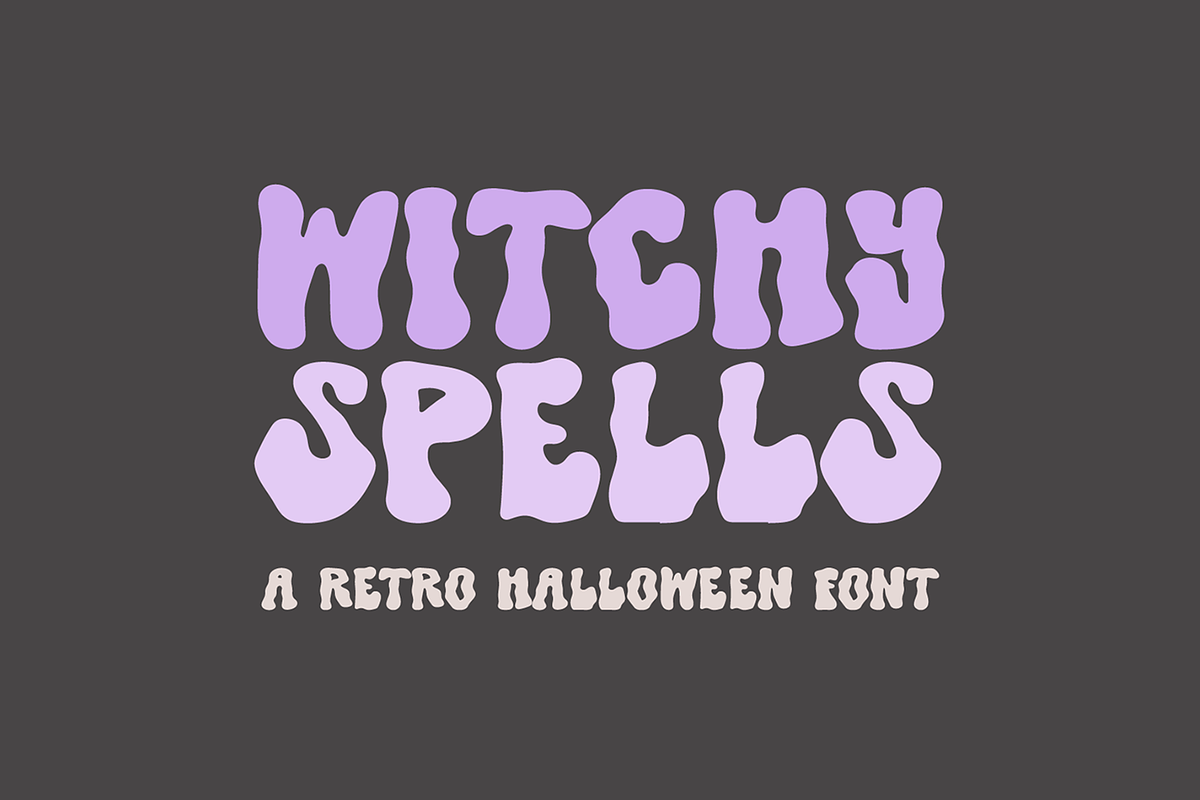
WITCHY SPELLS Retro Halloween Font Free Download is a spooky-fun typeface packed with vintage Halloween charm. With its bold, quirky letterforms and eerie flair, this font is perfect for Halloween party invitations, trick-or-treat signage, themed merchandise, social media posts, and any creative project that needs a dash of spooky nostalgia.
Inspired by retro horror movie posters and magical aesthetics, WITCHY SPELLS adds a whimsical yet creepy vibe that’s both playful and eye-catching. It’s ideal for designers looking to brew up something wickedly cool.